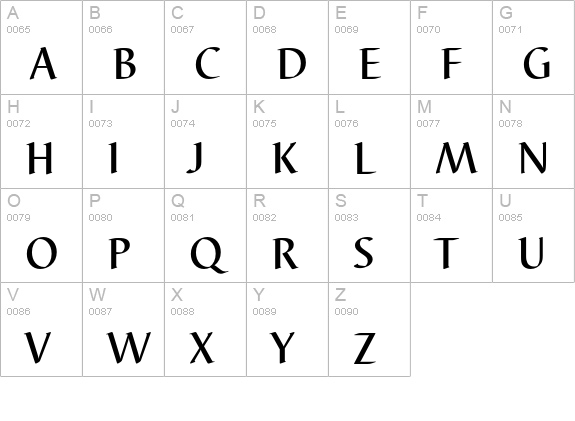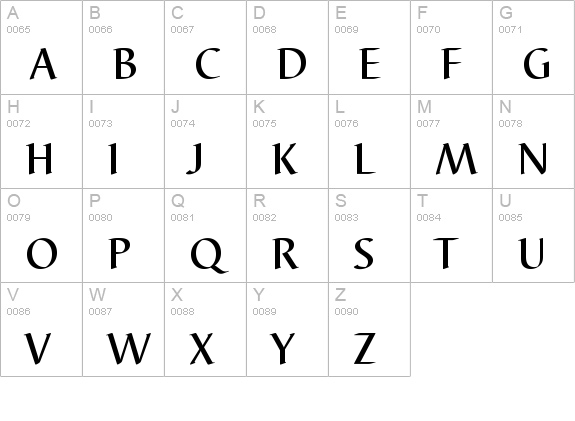
Barbedor DC D Medium is a balanced, medium-weight variant in the Barbedor typeface family \xE2\x80\x94 well suited to sub-headlines, navigation, and balanced editorial work.
Barbedor DC D Medium font is a versatile and elegant typeface that exudes sophistication and professionalism. With its clean lines and classic design, this font is perfect for a wide range of design projects, from branding to editorial layouts. The medium weight of the font strikes the perfect balance between readability and impact, making it ideal for headlines, subheadings, and body text. What sets Barbedor DC D Medium font apart is its unique blend of traditional and modern elements, making it a timeless choice for any project. Whether you're working on a print design or a digital project, this font will add a touch of class and style to your work. Best of all, Barbedor DC D Medium font is available for free download at FontsMarket.com. So you can easily add this stylish and versatile font to your collection without breaking the bank. Don't miss out on the opportunity to enhance your designs with this exceptional typeface.